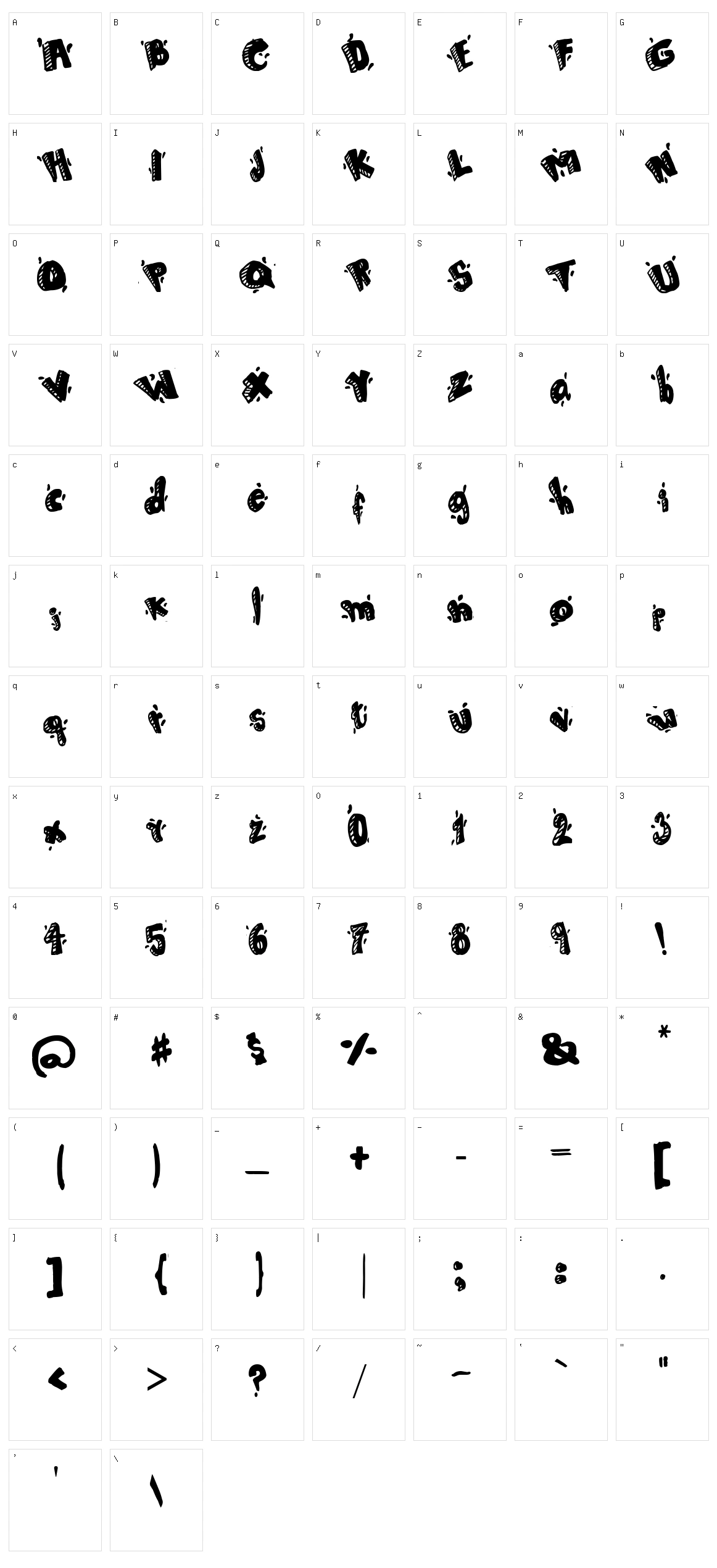
The free font Cartoon 80 is carefully designed by Edwing Rivera, showcasing a thoughtful balance of creativity and usability and falls under the Cartoon font style. When you download the ZIP file, it contains only 42.55 KB of font files, making it lightweight and quick to download. Please review the license details below to understand permitted usage and distribution rights. If license information is not available, we recommend using this font for personal projects only or contacting the author directly for commercial usage permissions.